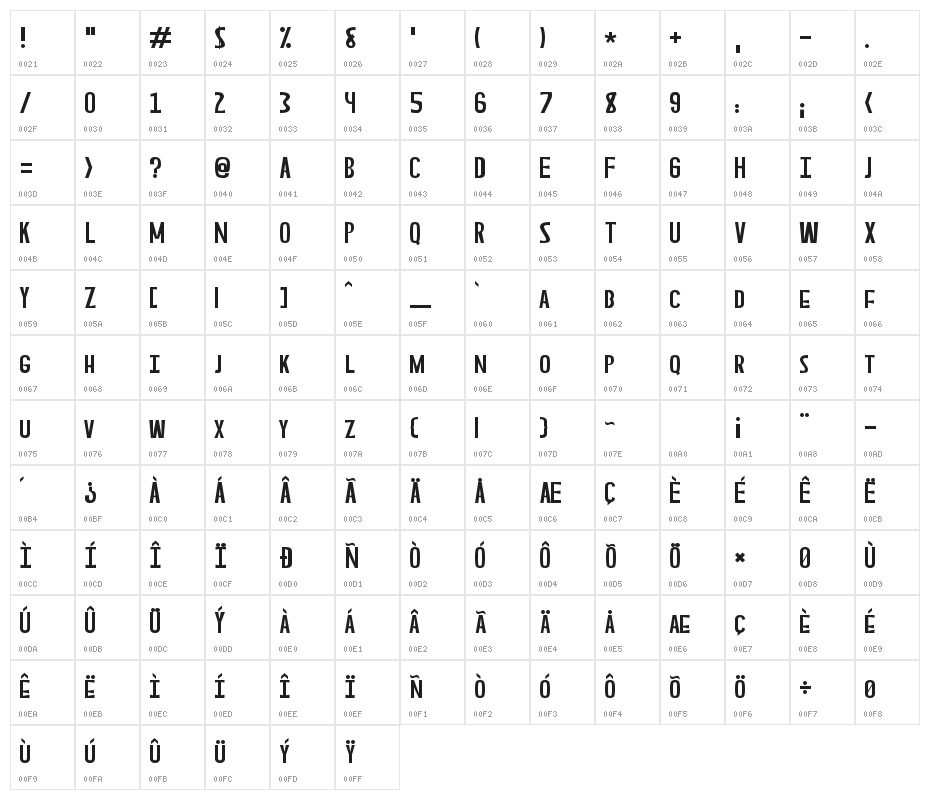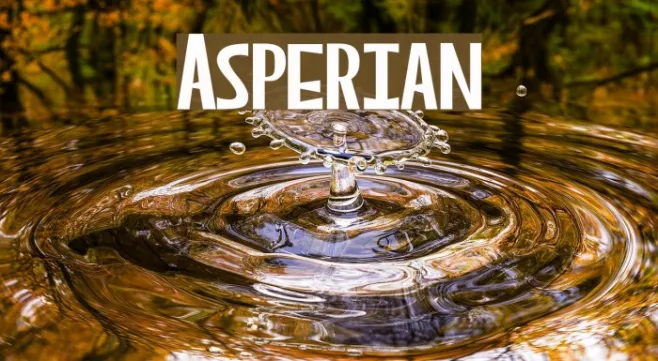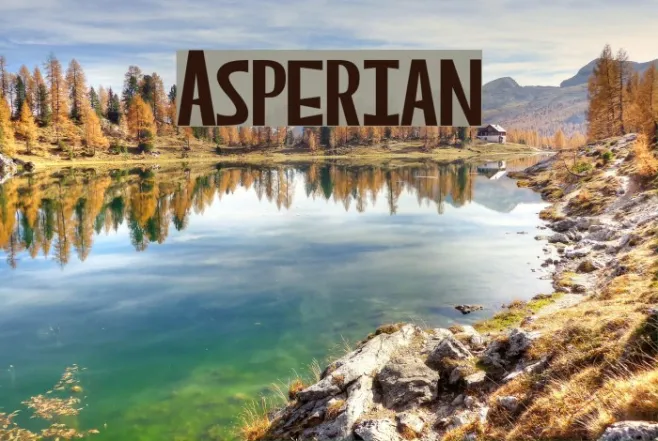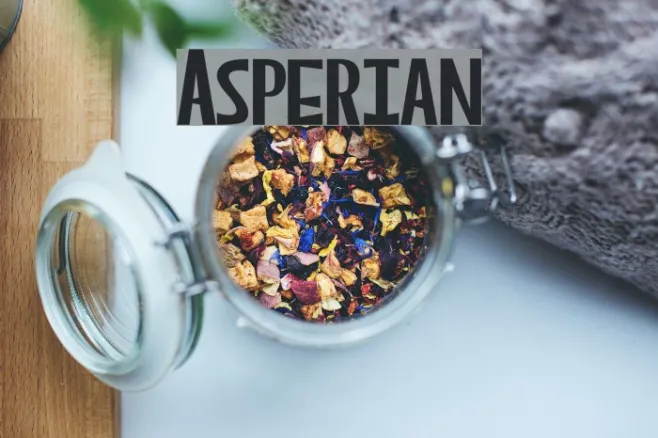
Asperian Font
Asperian Description
This font features bold, angular characters with a distinct geometric style. The uppercase letters are tall and commanding, while the lowercase letters maintain a consistent height and width, providing a balanced appearance. The numbers are clear and legible, with unique stylings that match the overall aesthetic. Special characters are designed with the same boldness, ensuring consistency across all text elements. The font's strong lines and sharp angles make it ideal for impactful designs.
| Proposed Projects | Ideal for branding, posters, headlines, and any project requiring a bold, modern look. |